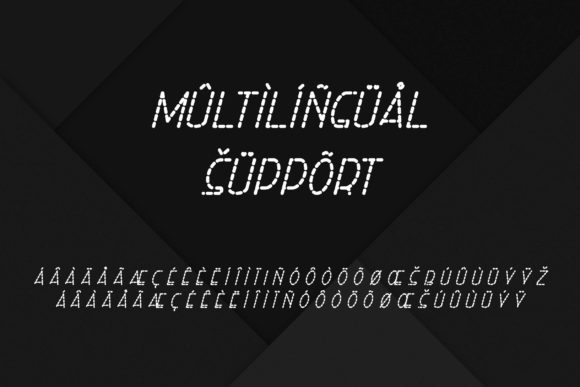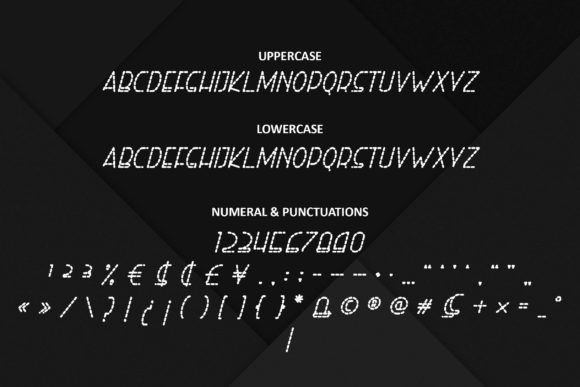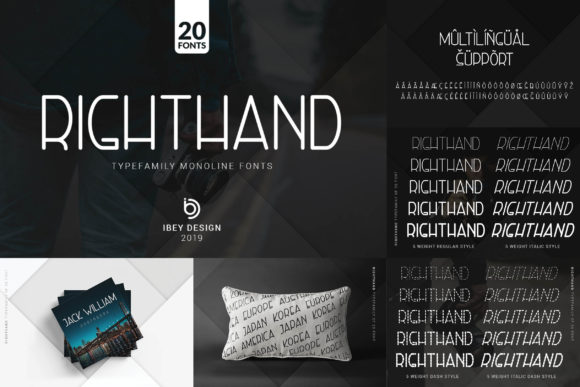
Introduction to Right Hand Bold Italic Dash Font
Have you ever stared at a blank canvas, waiting for the perfect font to bring your creative vision to life? That’s exactly where I was when I discovered the Right Hand Bold Italic Dash Font. This stunning modern monoline font is a game-changer for designers looking to elevate their work. With its sleek, high-quality design, it’s the perfect addition to any creative project.
Whether you’re crafting a logo, designing a product label, or creating a social media post, the Right Hand Bold Italic Dash Font is an invaluable resource. Its versatility and ease of use make it a favorite among designers, and the best part? It’s available for free download. With a transparent background and a range of styles to choose from, this font is a must-have for any design project.
As a designer, having access to high-quality fonts like the Right Hand Bold Italic Dash Font can make all the difference in your work. It’s not just about aesthetics – it’s about conveying a message, evoking emotions, and creating a lasting impression. With this font, you’ll be able to take your designs to the next level and leave a lasting impact on your audience.
Key Features of Right Hand Bold Italic Dash Font
- High quality, bold and italic font design ideal for creative projects
- Transparent background, allowing for seamless integration with any design
- Perfect for adding a touch of elegance and sophistication to your design work
- Designed to be a versatile design resource for use in various creative projects, including branding and marketing materials
- Unique characteristics include a bold and italic style, making it perfect for adding emphasis and highlighting important information
Honest Review: Right Hand Bold Italic Dash Font
As a designer, I’m always on the lookout for high quality design resources to elevate my creative projects. Recently, I stumbled upon the Right Hand Bold Italic Dash Font, and I’m excited to share my thoughts with you.
What works well: ✨ The font is incredibly versatile, making it perfect for a wide range of design applications, from logos and branding to digital interfaces and publications. The bold and italic styles add a touch of sophistication, while the dash element adds a unique twist. The free download is also a major plus, making it an excellent choice for designers on a budget.
What doesn’t: ⚠️ The font could benefit from more customization options, particularly when it comes to transparency. The transparent background can sometimes make the text difficult to read, especially on busy backgrounds. Additionally, the font might not be suitable for all types of projects, particularly those that require a more minimalist approach.
Overall, I’m impressed with the Right Hand Bold Italic Dash Font. While it may have some limitations, its unique style and free download make it an excellent addition to any designer’s toolkit. I’d highly recommend it for creative projects that require a touch of personality and flair.
- Perfect for logos, branding, digital interfaces, and publications
- High quality design resource
- Transparent background can be a limitation
- May not be suitable for all types of projects
Tips for Getting the Most Out of Right Hand Bold Italic Dash Font
For best results, use Right Hand Bold Italic Dash Font with a transparent background to make your design stand out. You can also experiment with different font sizes and styles to achieve a unique look. Don’t forget to save your design as a high-quality image or document to ensure it looks great on any device.
Right Hand Bold Italic Dash Font is perfect for creative projects that require a bold and eye-catching font. Use it for logos, posters, social media graphics, and other design elements that need a high-quality and unique touch.
Is the Right Hand Bold Italic Dash Font suitable for use on a transparent background?
Yes, the Right Hand Bold Italic Dash Font has a transparent background, making it perfect for use on complex backgrounds or with layered designs. This feature allows your design to stand out and ensures that the font blends seamlessly with your creative project.